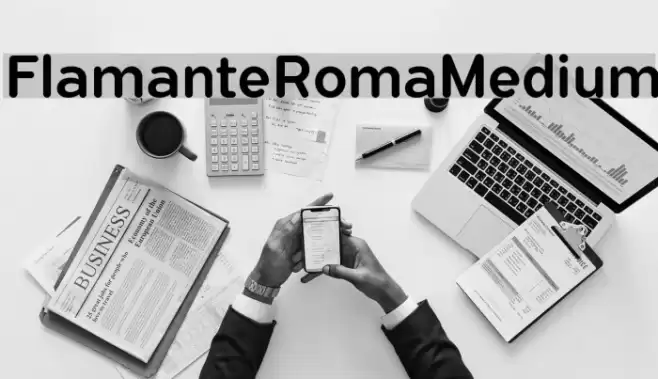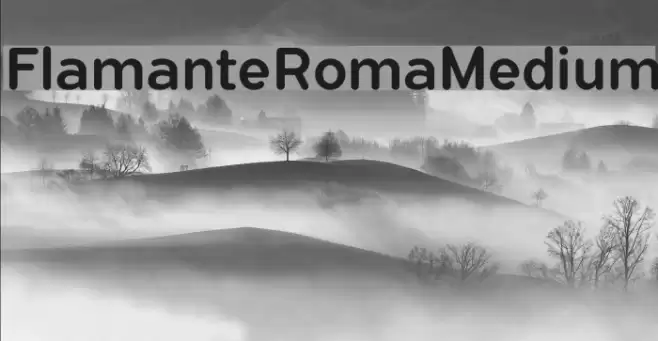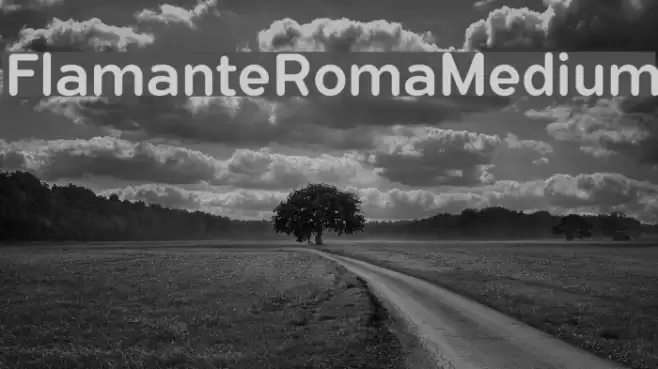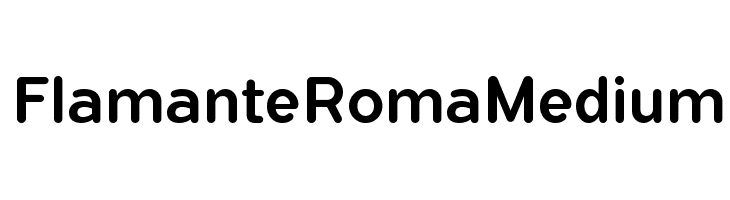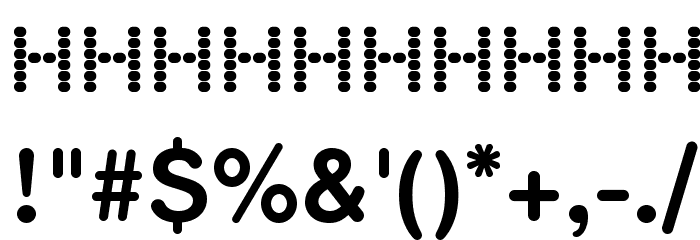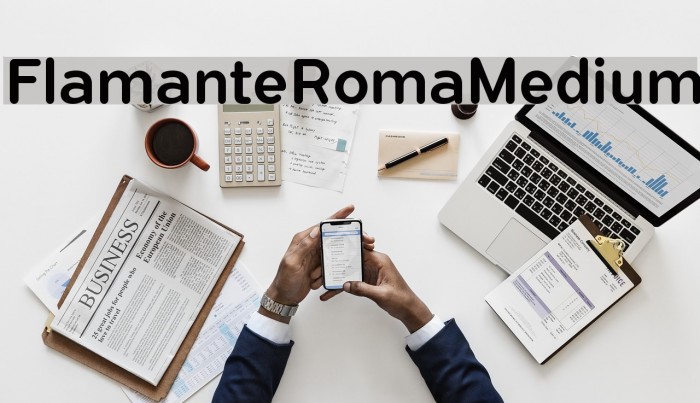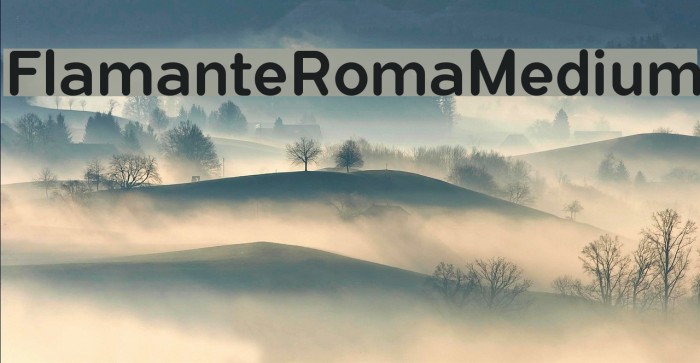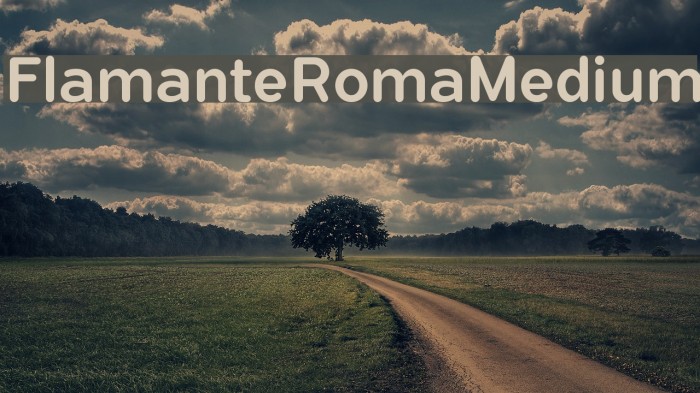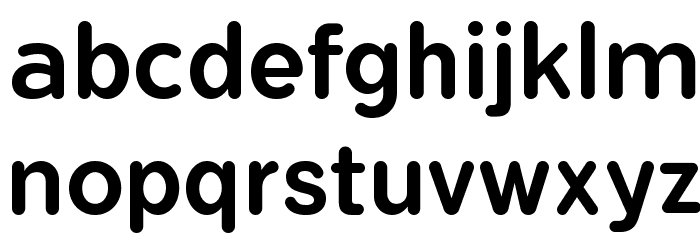
FlamanteRomaMedium Font
FlamanteRomaMedium Description
This font features a clean and modern sans-serif style with smooth curves and a balanced structure. The uppercase letters are bold and assertive, while the lowercase letters maintain a consistent and harmonious appearance. The numerals are clear and easy to read, making them suitable for various applications. Special characters are well-defined, adding versatility to the font. The overall design is sleek and contemporary, ideal for projects that require a professional and polished look.
A modern sans-serif font with smooth curves and a balanced structure from Uncategorized fonts.
- Proposed Projects: Ideal for branding, advertising, web design, and editorial projects.